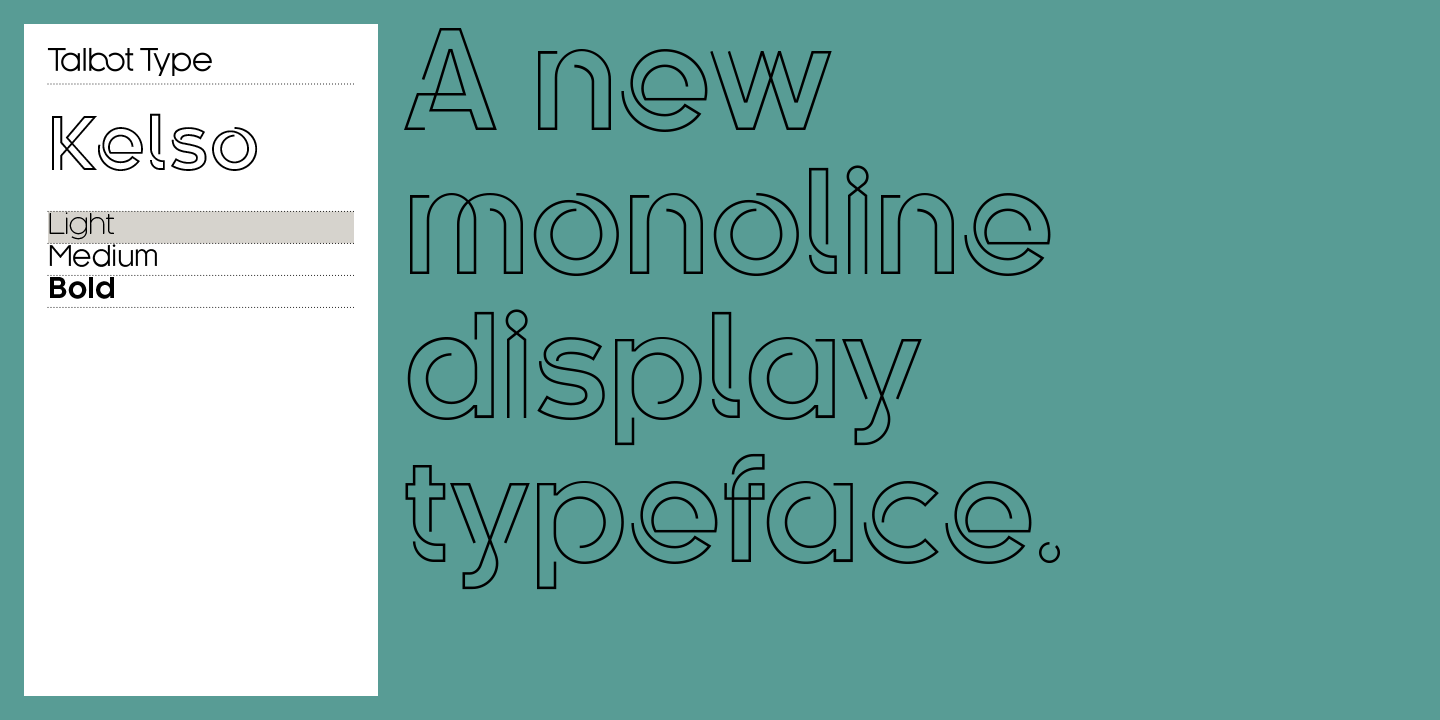
Kelso Font is perfect for branding projects, logo design, product packaging, magazine headers, advertising campaigns, social media graphics, poster designs, business cards, website headers, book covers, and creative typography projects that require a modern and distinctive appearance.
What makes Kelso Font exciting is its unique blend of contemporary style with timeless elegance. This typeface captures attention with its carefully crafted letterforms that balance readability with artistic flair. The font's distinctive character makes it an excellent choice for designers who want to create memorable visual identities that stand out in today's competitive marketplace.
The Kelso Font family includes multiple weights and styles, offering versatility for various design applications. From light and regular weights to bold and extra-bold variations, this comprehensive font family provides designers with the flexibility to create hierarchical typography systems that maintain visual consistency across different platforms and media.
Professional designers appreciate Kelso Font for its versatility in both digital and print environments. Whether you're creating eye-catching headlines, elegant body text, or impactful display typography, this font delivers consistent performance. The character set includes standard alphabetic characters, numerals, punctuation marks, and special symbols, ensuring comprehensive coverage for most design projects.
The contemporary appeal of Kelso Font makes it particularly suitable for modern brands seeking to establish a strong visual presence. Its clean lines and sophisticated structure work exceptionally well in minimalist design approaches while maintaining enough personality to add character to more expressive creative projects.
For typography enthusiasts and professional designers alike, Kelso Font represents an excellent addition to any font library, offering the perfect balance of functionality and aesthetic appeal that elevates design projects to professional standards.